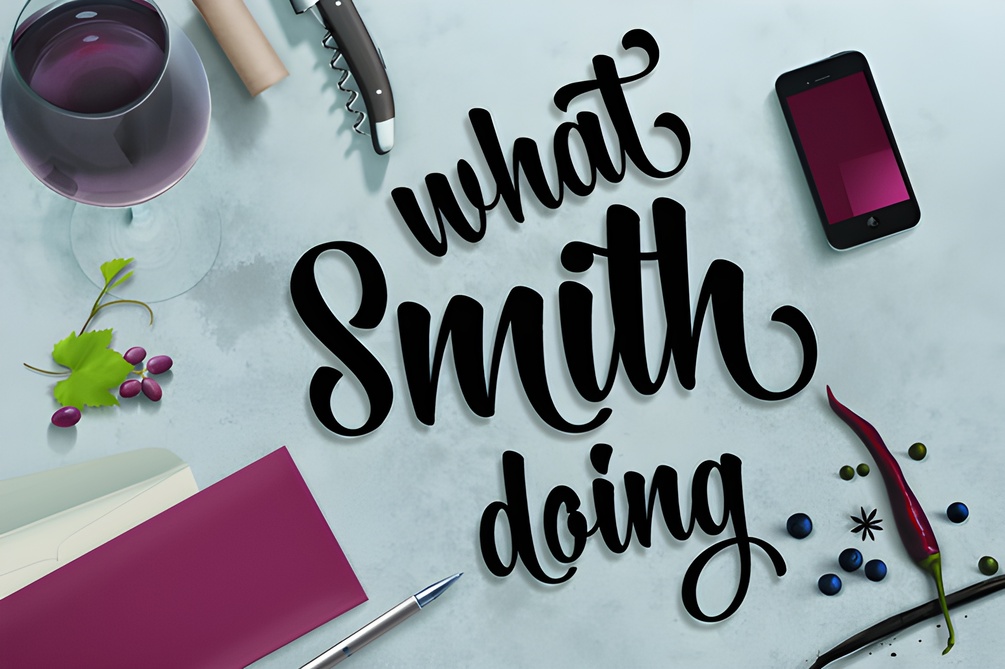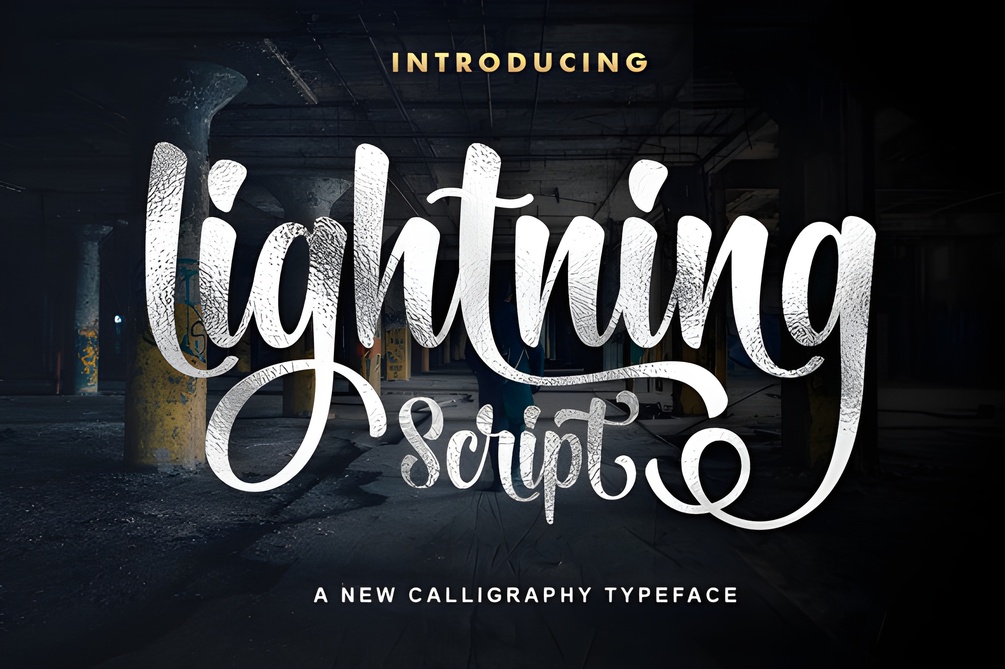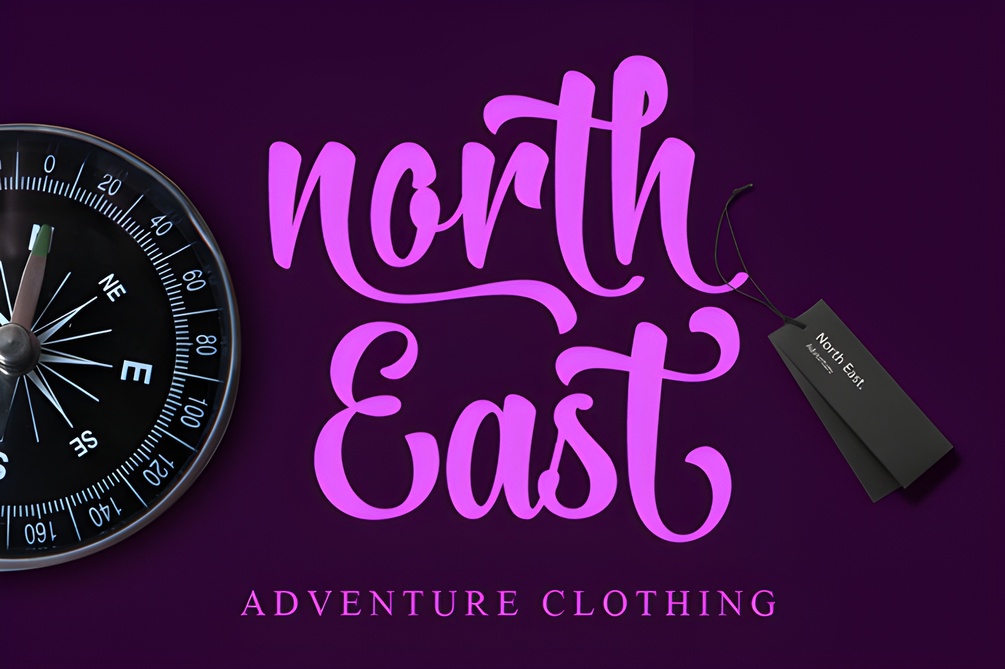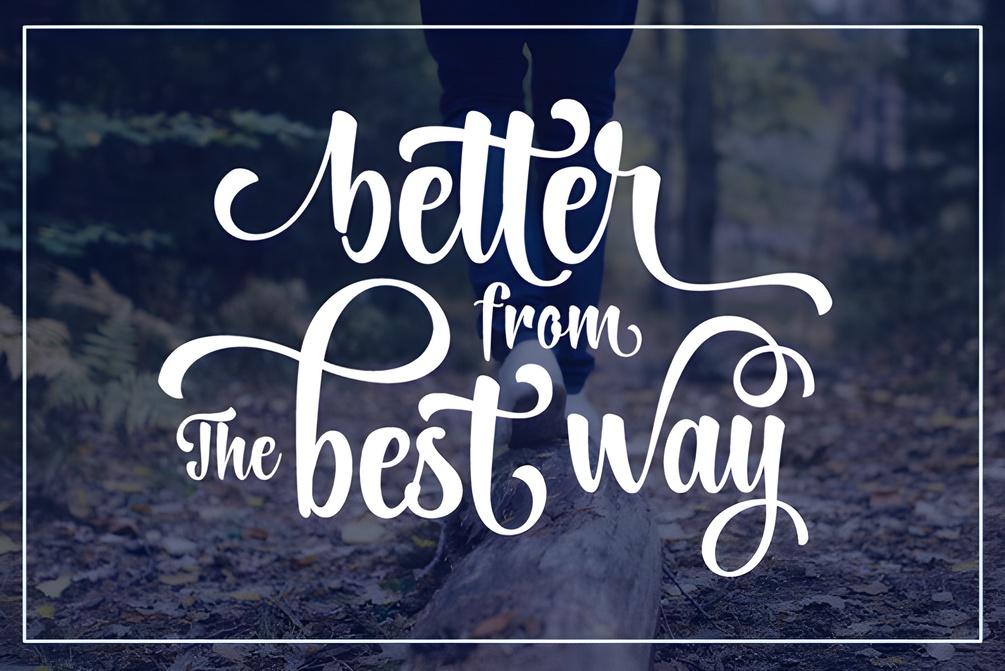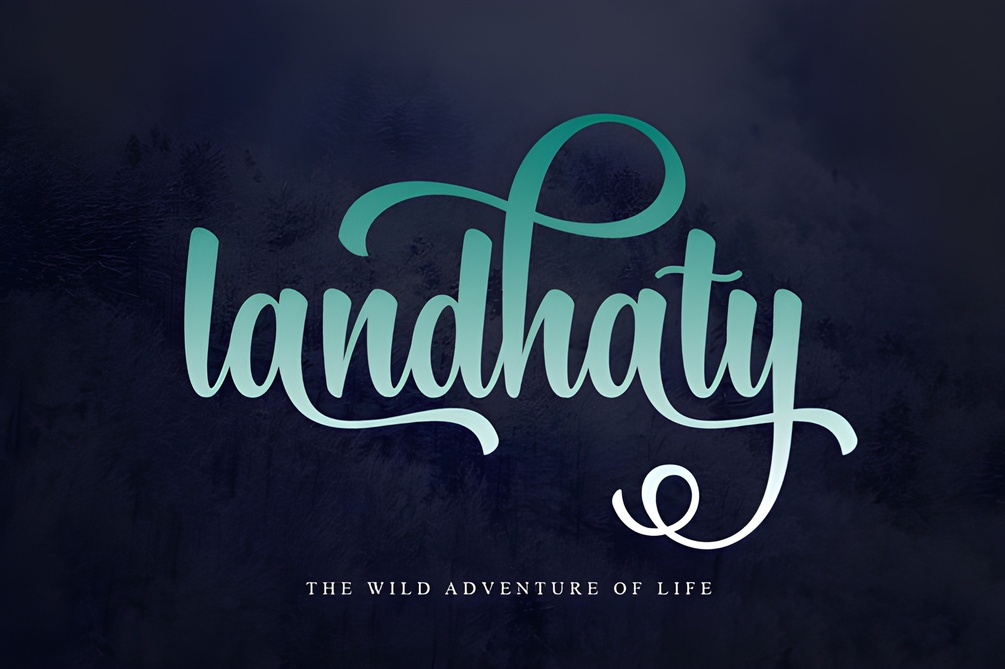
About Lightning Script Font
The Lightning Script font is a beautiful handwritten typeface perfect for adding a personal touch to your designs. Ideal for branding materials, signs, invitations, business cards, and more, it enhances any project with its stunning artistic flair.
The Lightning Script font is a stunning handwritten typeface that adds a personal touch to any design. Perfect for branding materials, signs, invitations, business cards, and more, this beautiful font elevates your creations to the next level with its artistic charm.